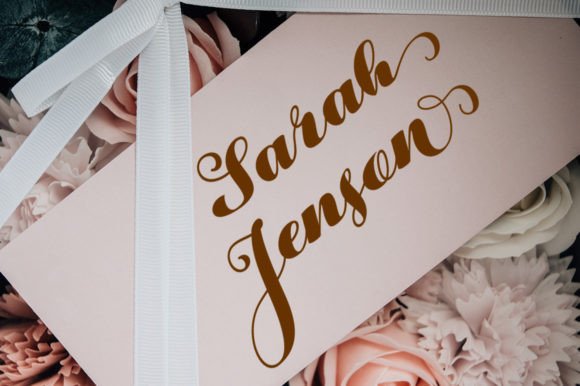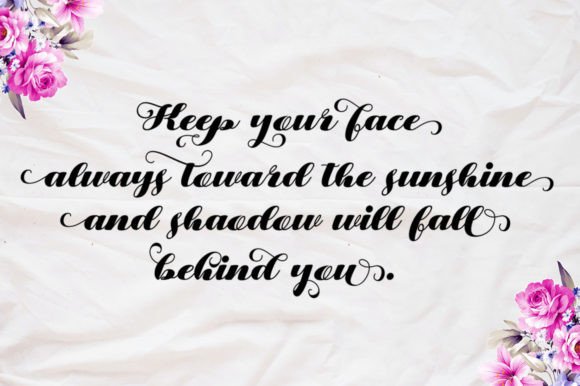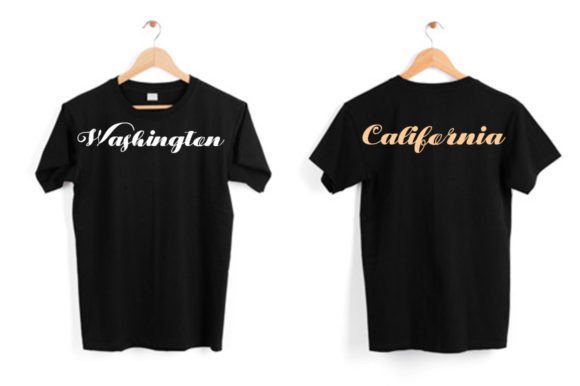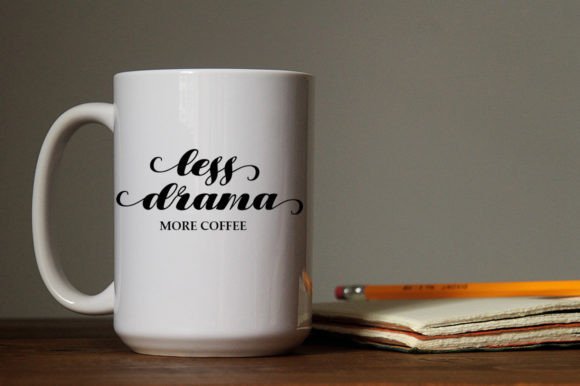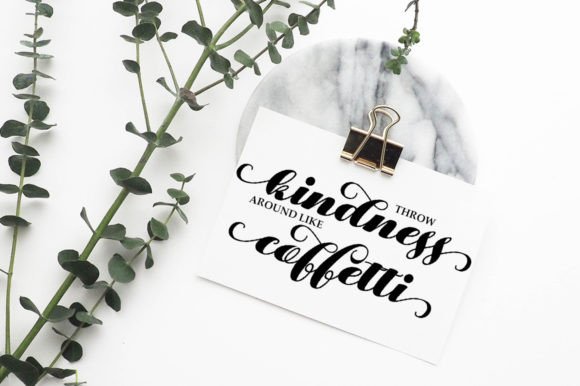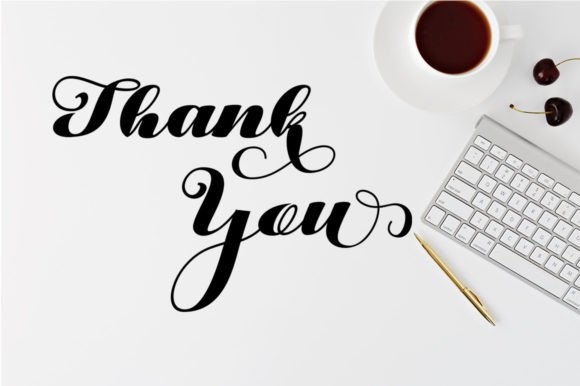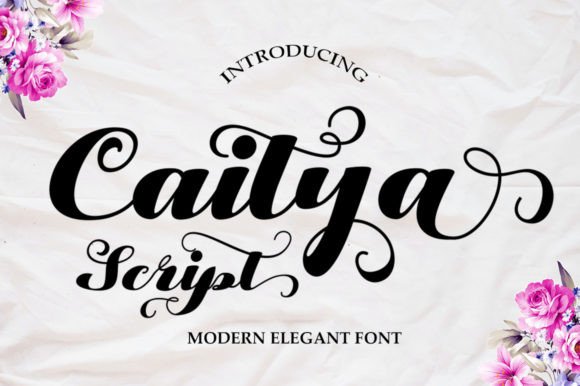
Introducing Caitya Script Font: Elevate Your Designs with Elegance
Are you a designer or crafter looking for a font that can add a touch of sophistication and elegance to your creations? Look no further than Caitya Script Font. This bold and gorgeous handwritten font is perfect for a wide range of projects, from branding and advertising to packaging and digital media.
The Versatility of Caitya Script Font
One of the standout features of Caitya Script Font is its versatility. No matter the topic or theme of your project, this font is sure to be an incredible asset to your font library. Whether you’re working on a luxury brand campaign, a wedding invitation, or a social media graphic, Caitya Script Font has the potential to elevate your creation and make it stand out.
With its bold and expressive letterforms, Caitya Script Font is perfect for headlines, titles, and short paragraphs of text. It’s also great for creating eye-catching graphics, such as posters, flyers, and brochures. The font’s elegant and refined appearance makes it suitable for a wide range of industries, from fashion and beauty to food and beverage.
Key Features of Caitya Script Font
• Bold and gorgeous handwritten font: Caitya Script Font is a stunning example of a handwritten script font, with bold and expressive letterforms that are sure to grab attention.
• Versatile and flexible: This font is perfect for a wide range of projects, from branding and advertising to packaging and digital media.
• Elegant and refined appearance: This font has an elegant and refined appearance that makes it suitable for a wide range of industries and applications.
Tips for Using Caitya Script Font
Here are a few tips for getting the most out of Caitya Script Font:
• Use it as a headline font: Caitya Script Font is perfect for headlines and titles, where its bold and expressive letterforms can really make an impact.
• Pair it with a sans-serif font: For body text, consider pairing Caitya Script Font with a clean and simple sans-serif font, such as Arial or Helvetica.
Font Name Caitya Script Font
Author Shape Studio